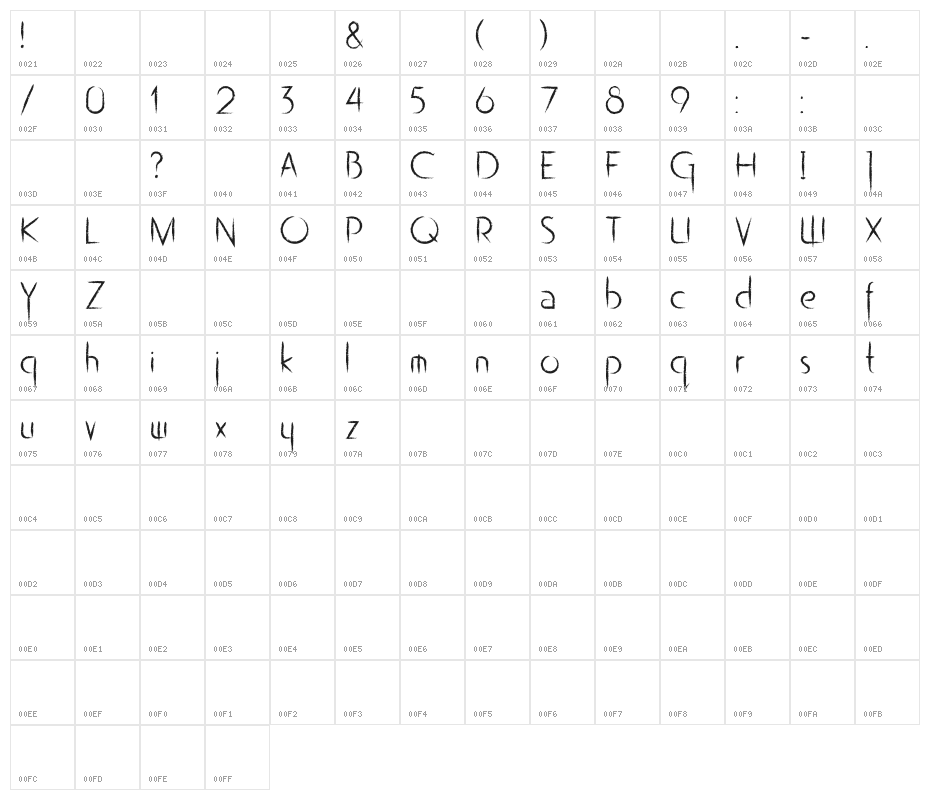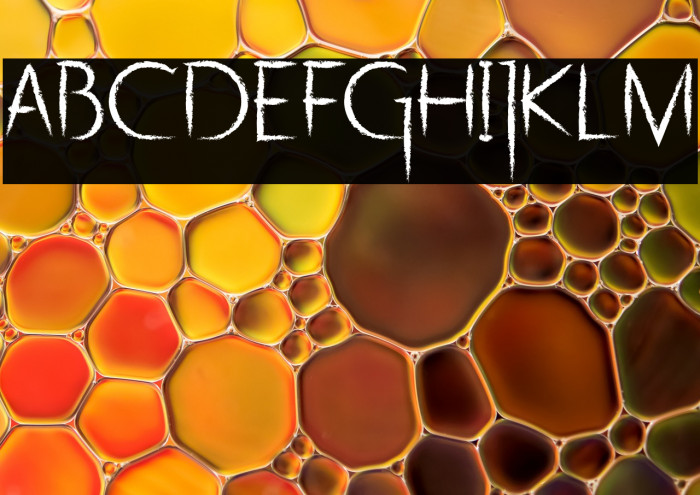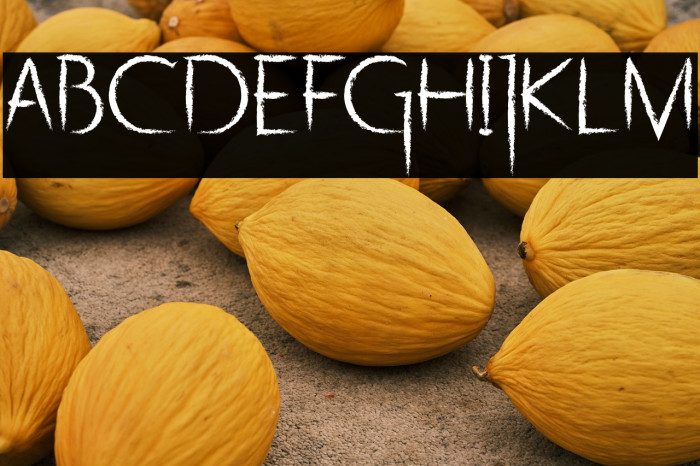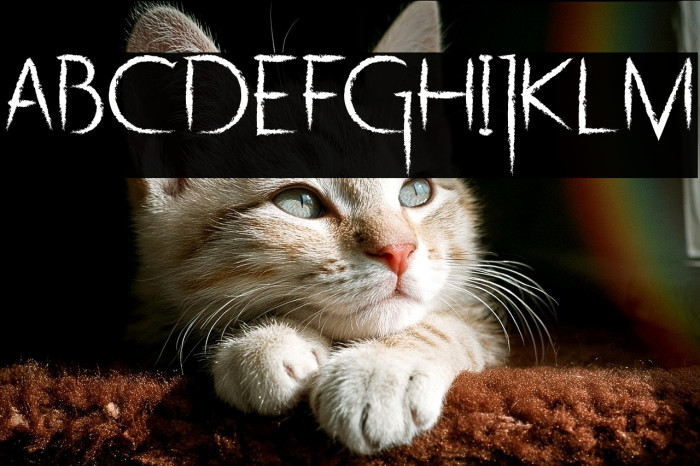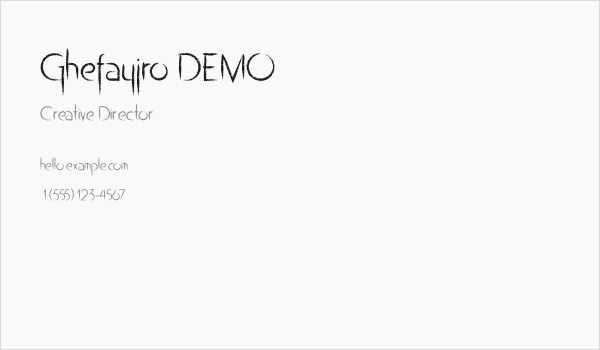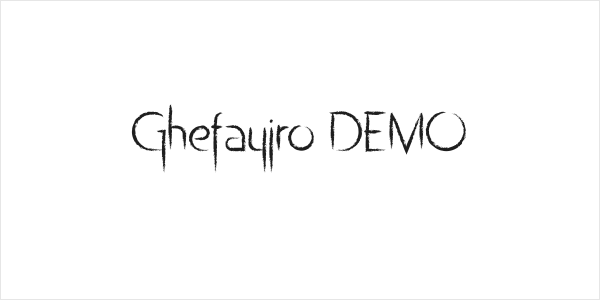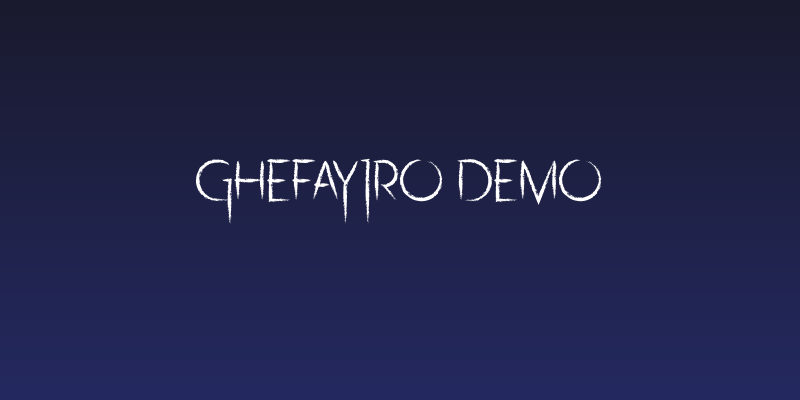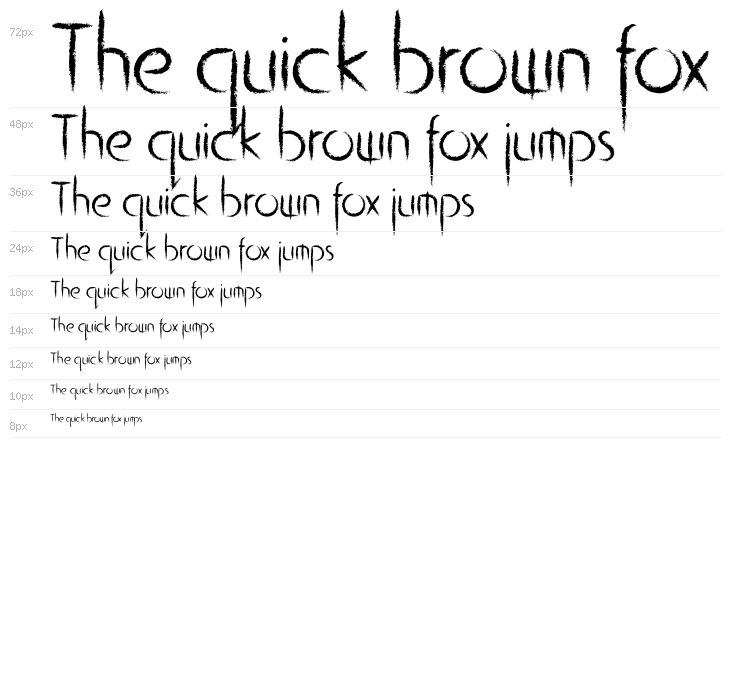
Ghefayjro DEMO Font
Ghefayjro DEMO Description
This font features a distinctive, hand-drawn style with sharp, elongated strokes that give it a dramatic and edgy appearance. The characters are unevenly weighted, with some strokes appearing much thicker than others, creating a high contrast that adds to its striking look. The uppercase letters are tall and narrow, while the lowercase letters maintain a similar style but with slightly more rounded forms. The numbers and special characters follow the same aesthetic, ensuring a cohesive look across all glyphs. This font's unique style makes it stand out, making it suitable for creative and artistic projects.
| Proposed Projects | Ideal for album covers, posters, artistic branding, and creative design projects. |